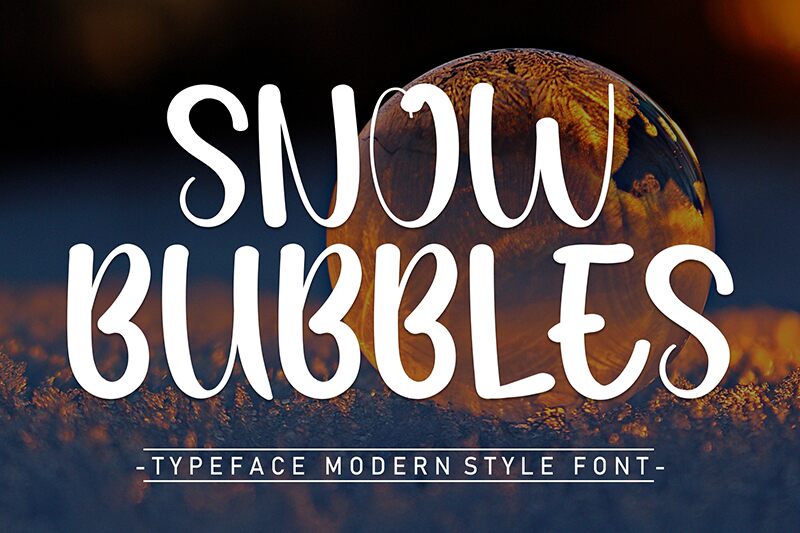
Snow Bubbles
Snow Bubbles font by Andi Moz is a wonderfully whimsical free brush font with flowing organic curves and an energetic appearance. It features a close hand-painted look with a casual mood perfect for users looking to have fun while designing.
This handwriting style makes Snow Bubbles great for posters, stationery, invites, and scrapbooking. Use it in branding projects as in logo designs as well as on label designs; use the type in ads, social media posts, inspirational quotes and typography prints.